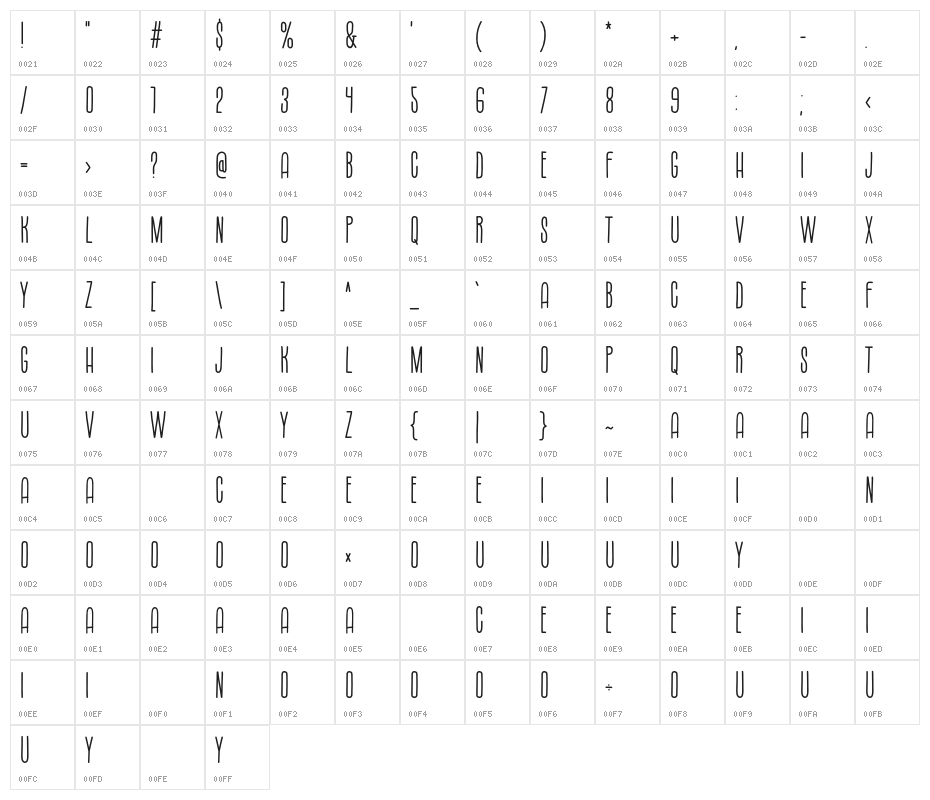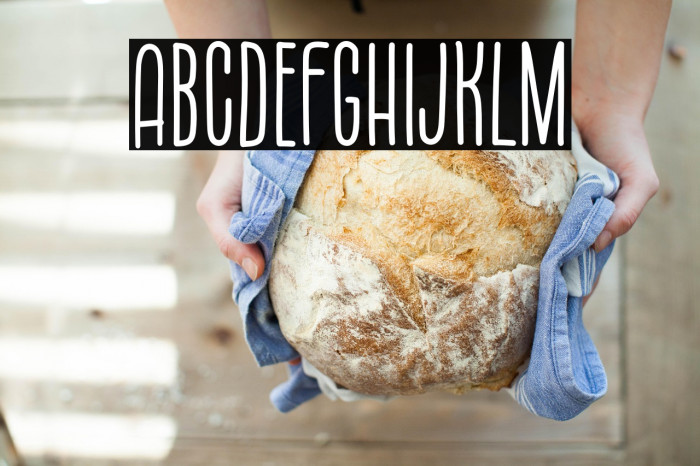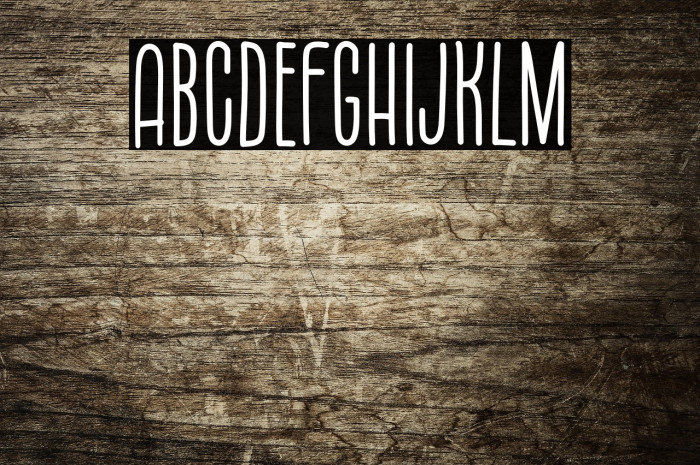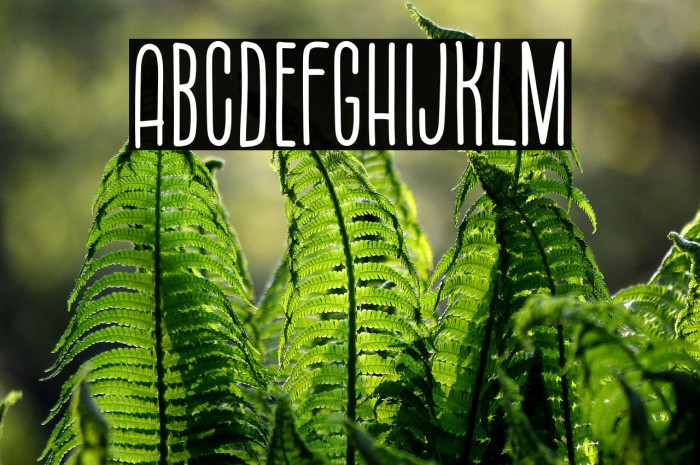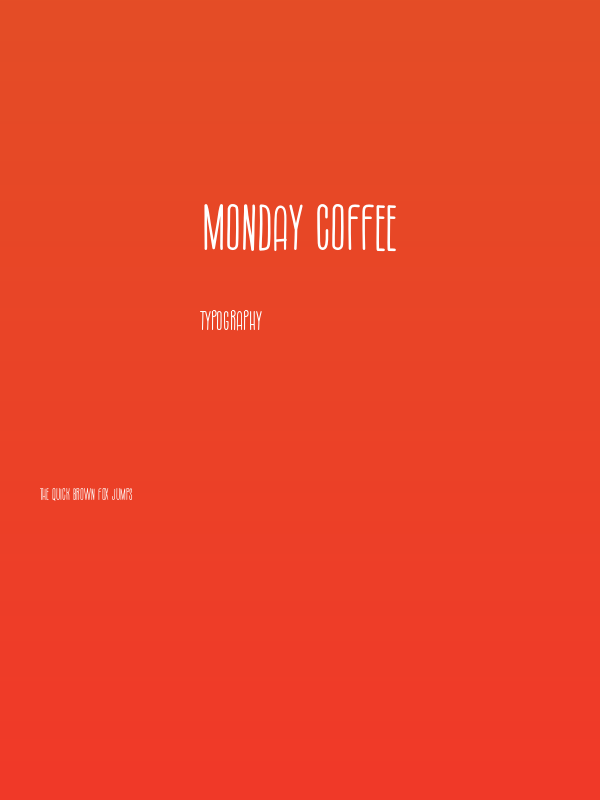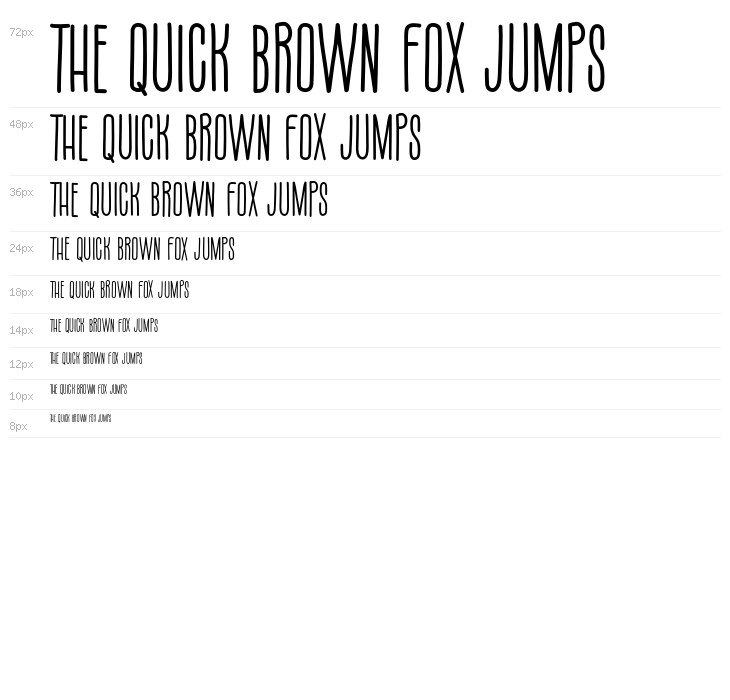
Monday Coffee Font
Monday Coffee Description
This font features a tall, narrow design with a playful and casual feel. The characters are elongated with a consistent stroke width, giving it a clean and modern appearance. The uppercase and lowercase letters maintain a uniform height, enhancing readability while adding a touch of elegance. The numerals and special characters are designed to complement the letters, maintaining the same slender and elongated style. This font's unique character spacing and vertical emphasis make it stand out, perfect for projects that require a distinctive yet legible typeface.
| Proposed Projects | Ideal for branding, posters, headlines, and social media graphics. |